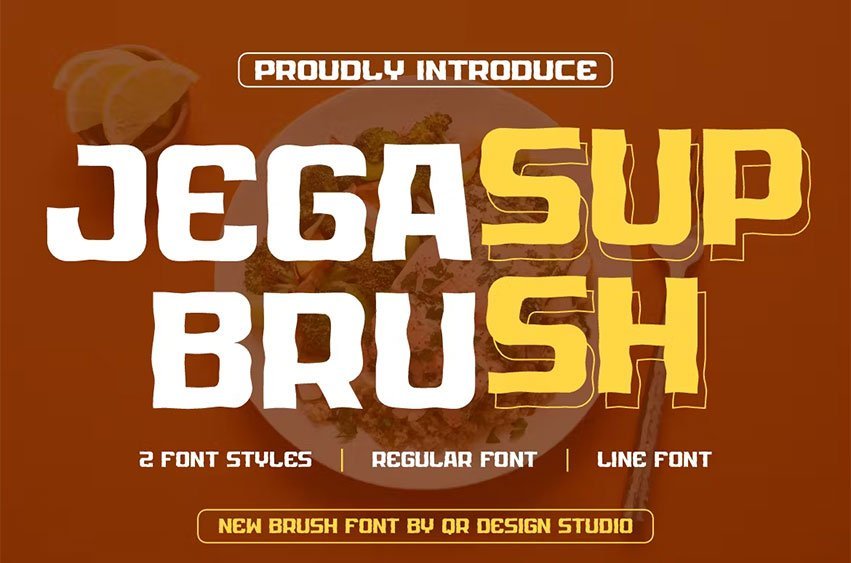
Jegasup Brush Font + Line Font is a bold and authentic display font. The font is suitable for any branding project like logo, sport, and many more. Outstanding in a wide range of contexts.